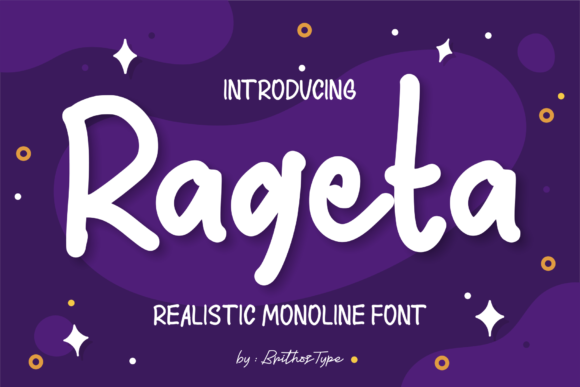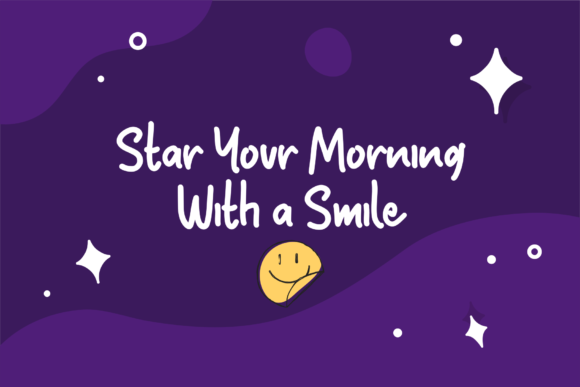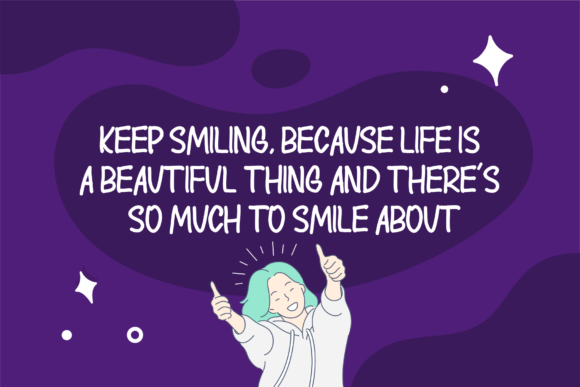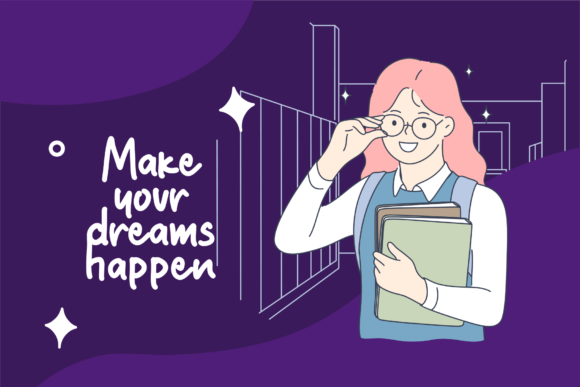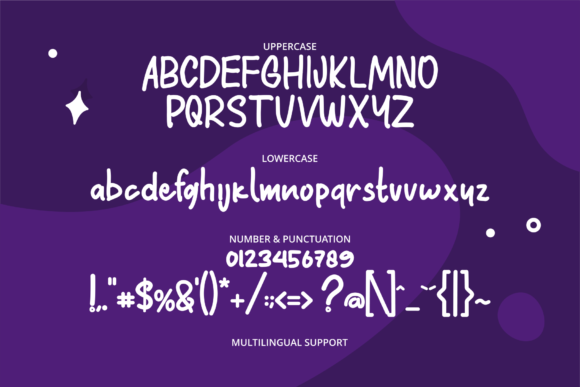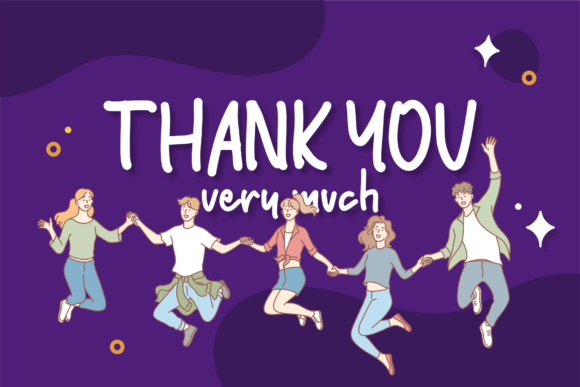
Rageta Font
About Rageta Font
Rageta is a whimsical paint brushed script font with a relaxed theme, featuring a lovely style. No matter the topic, this font will be an incredibly asset to your fonts’ library, as it has the potential to elevate any creation.